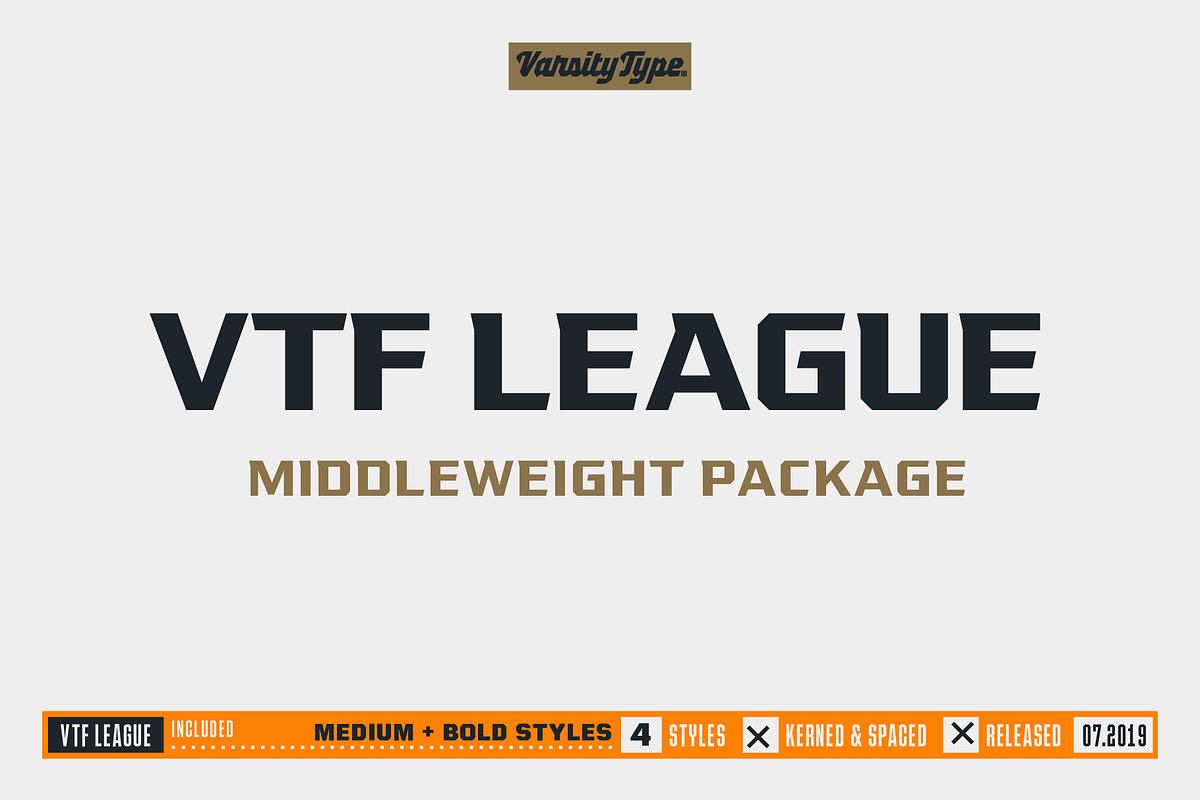
VTF League Font Free Download – Middleweight Package is a strong, versatile typeface designed for impact and clarity. With bold lines, athletic inspiration, and clean structure, this font is ideal for sports branding, team logos, apparel design, posters, and dynamic social media content. It brings a confident and competitive vibe to every project.
This middleweight version offers the perfect balance between heavy impact and refined readability, making it incredibly flexible for both digital and print use. Whether you're building a bold brand identity or creating energetic event graphics, VTF League delivers performance and style. VTF League Font Free Download lets you try this powerhouse font for personal projects before investing in a commercial license.
Step into the design arena with VTF League — a font built for champions.